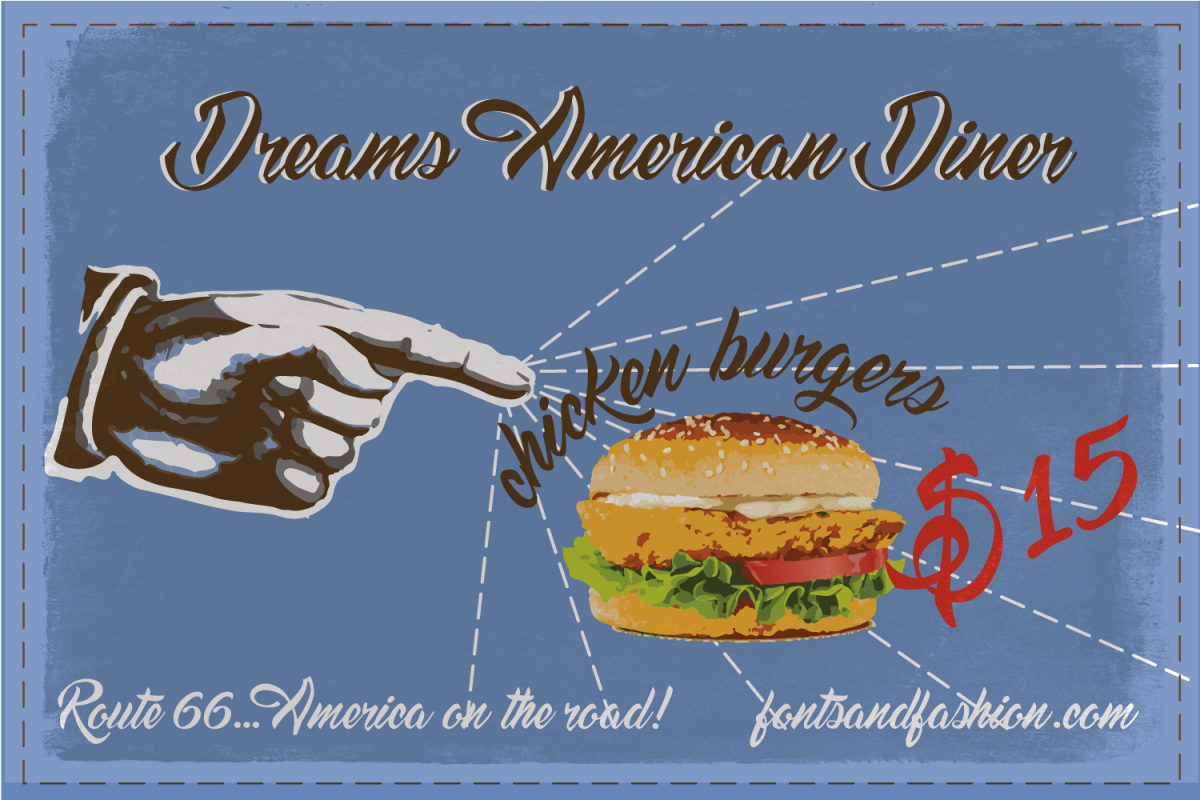
Dreams American Diner
The inspiration for this new font comes from the thought of food...
As the letters started taking shape, my mind wandered towards menus and writings on old diner windows and old restaurant signs, the ones you can still see today, like distant evidence of a not so ancient past on route 66...
Advertising for multi-ethnic American food, which is now well known all over the world...tex-mex, barbecue, hamburgers...
A delicate lettering that advertises strong flavors...
Food has always been a huge social vector and I've become enthusiastic over its evocative power...
We attribute many adjectives to food, but have you ever defined it as elegant?
Food can be elegant not only because it is well arranged on a plate, but also because it comes from a creative idea for its presentation, and what could be more important than the visual impact of the best font to advertise a menu?
You can start from a menu to go on to signs and advertising...it's a pleasant, neat and refined lettering that can be used in many up-to-date contexts.